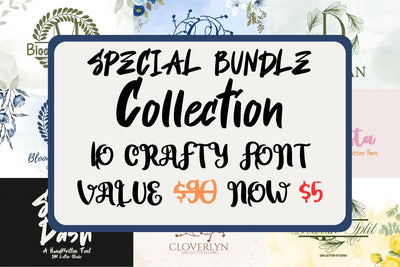
Special Bundle Collection
Special Bundle Collection – 10 Premium Fonts for Only $5
Upgrade your creative toolkit with the Special Bundle Collection, a curated pack of 10 stunning fonts covering script, serif, and split monogram styles. From elegant branding fonts to customizable split monograms, this bundle is designed to give you the variety and versatility you need for logos, invitations, packaging, and craft projects.
✨ Fonts Included in the Bundle:
Streetdash – A modern handwritten script with bold strokes and urban energy.
Halista – A refined serif display font with timeless elegance.
Bloomique – A floral-inspired monogram font full of delicate details.
Bloomique Split – A customizable split version for names and dates.
Botanite – A botanical-themed serif monogram font.
Botanite Split – The split edition for personalized projects.
Cloverlyn – A leafy monogram font with whimsical elegance.
Cloverlyn Split – Split version for crafting names and wedding designs.
Dewlan – A graceful monogram font inspired by natural curves.
Dewlan Split – Split-letter format for personalized text inserts.